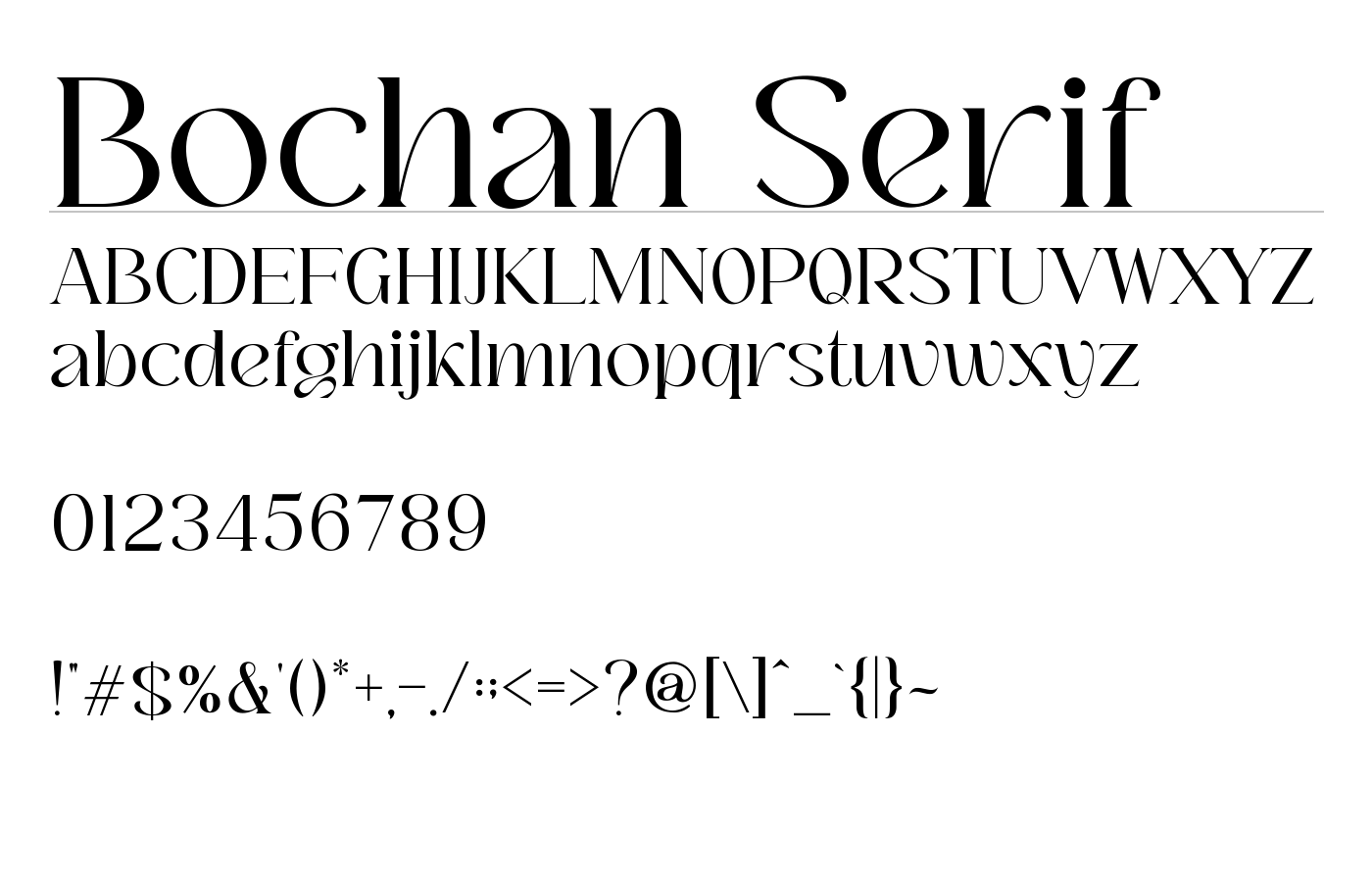
Bochan Serif is an elegant modern serif font with high contrast between thick and thin strokes, featuring slender, graceful letterforms and refined details like a distinctive Q tail and single-story a and g. Its tall, narrow structure and delicate serifs give it a sophisticated, luxurious feel, making it ideal for fashion branding, editorial headlines, and upscale packaging where a sleek, stylish impression is desired. This font balances classic serif tradition with contemporary flair, perfect for designers seeking a refined and distinctive typographic voice.
Bochan Serif Font
About Bochan Serif Font
| Font family | Bochan Serif Font |
| Designer | Burhan Afif |